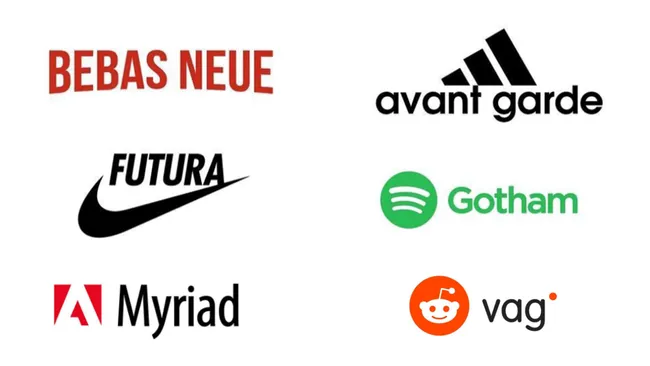
Worlds Famous Brands Logo Fonts Collection
This exclusive collection brings together 18 carefully selected typefaces that capture the essence of world-renowned brand identities. Each font in this library has been either directly inspired by or closely resembles the distinctive typography used by some of the most successful companies in the world, giving your projects that coveted “brand-ready” feel.
The collection includes fonts inspired by:
Tech & Innovation Brands:
- Google-inspired sans-serif with friendly, approachable curves
- Microsoft-style humanist typefaces with clean legibility
- Facebook-influenced modern geometric designs
Fashion & Luxury:
- Calvin Klein-style minimalist sans-serifs
- Vogue-inspired elegant serifs with refined contrast
- Luxury brand aesthetics with sophisticated proportions
Media & Entertainment:
- Disney-inspired whimsical scripts with magical character
- Cartoon Network-style playful geometric fonts
- DreamWorks-influenced dynamic typefaces
Sport & Athletic:
- Nike-style bold geometric fonts with dynamic energy
- Adidas-inspired clean, powerful sans-serifs
- Athletic brand aesthetics with impact
Classic & Heritage:
- Coca-Cola-style flowing scripts with timeless appeal
- FedEx-inspired clean, professional sans-serifs
- eBay-influenced Univers-style extended characters
Key Features of This Famous Brands Collection:
- 18 Brand-Inspired Fonts: Typefaces capturing the essence of global brand identities
- Iconic Aesthetics: From tech to fashion to entertainment
- Versatile Application: Perfect for logos, branding, packaging, and marketing